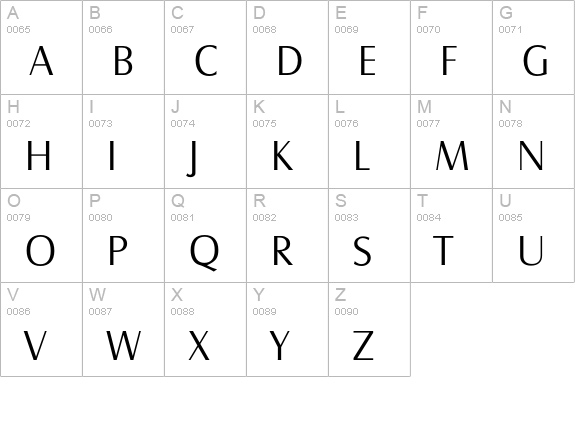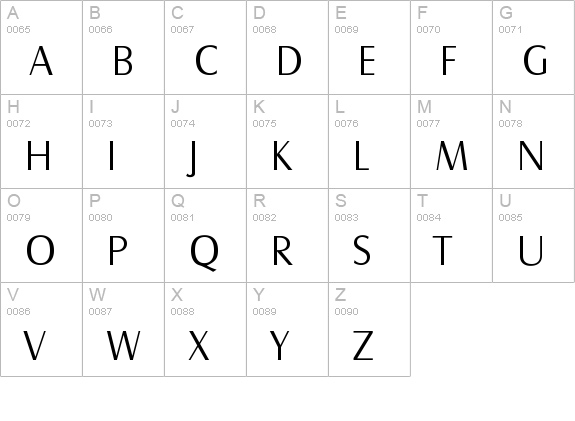
Salzburg-Light is a refined, elegant variant in the Salzburg typeface family \xE2\x80\x94 well suited to elegant body text, refined sub-headings, and luxury branding.
Salzburg-Light font is a visually stunning typeface that exudes elegance and sophistication. Its clean and well-balanced letterforms make it perfect for a wide range of design projects, including branding, packaging, and editorial work. The delicate curves and slender strokes of this font give it a light and airy feel, adding a touch of grace to any design. One of the standout features of Salzburg-Light font is that it is available for free. Yes, you read that right! You can easily download this font without any cost, making it an excellent choice for designers on a budget or anyone who simply appreciates high-quality fonts without breaking the bank. To get your hands on this beautiful typeface, head over to FontsMarket.com. There, you will find a vast collection of fonts, including Salzburg-Light font, all available for free download. FontsMarket.com is a reliable and user-friendly platform that ensures a seamless and hassle-free experience when it comes to acquiring the fonts you need. With Salzburg-Light font, you can add a touch of sophistication and elegance to your designs without compromising your budget. Its timeless appeal and versatility make it a must-have font for any designer looking to create visually captivating and professional-looking projects. So don't miss out on this fantastic opportunity to enhance your design arsenal with a font that not only looks amazing but is also freely available for download at FontsMarket.com.